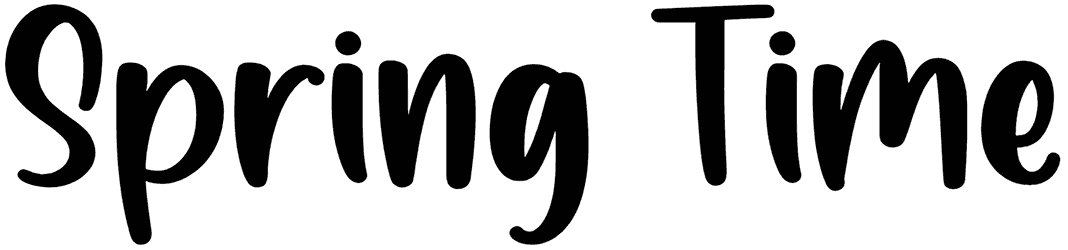
Spring Time Font
Say hi to Spring Time, a natural and timeless handwritten font, the same as its name. This fresh script font could be perfect for many designs like a minimal postcard for Thanksgiving. Test it for your creative design to see how unique the outcome is going to become and leave a good first impression on your followers.